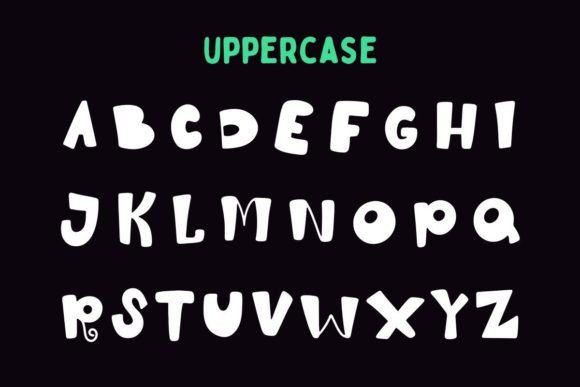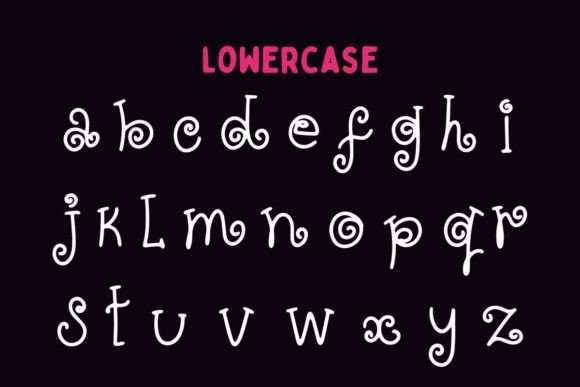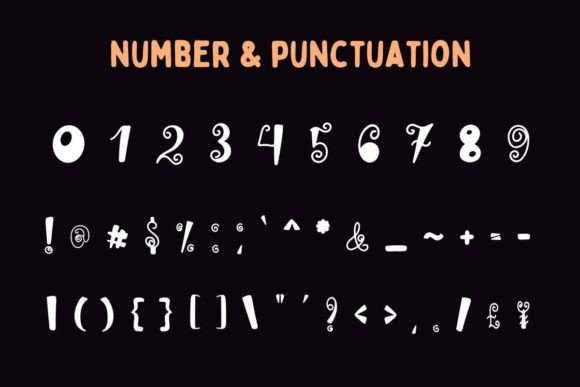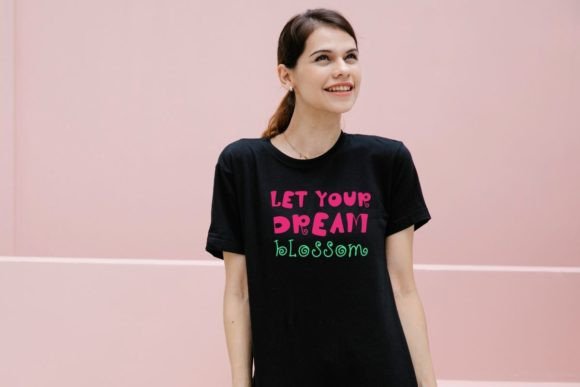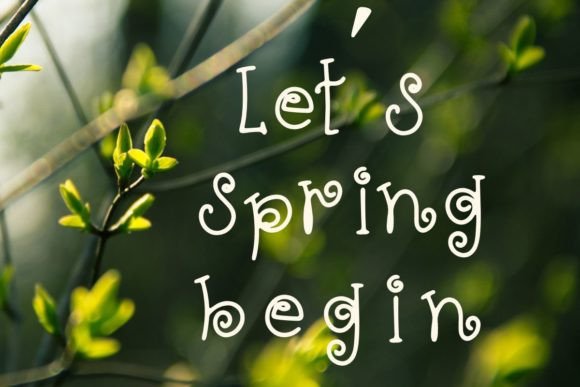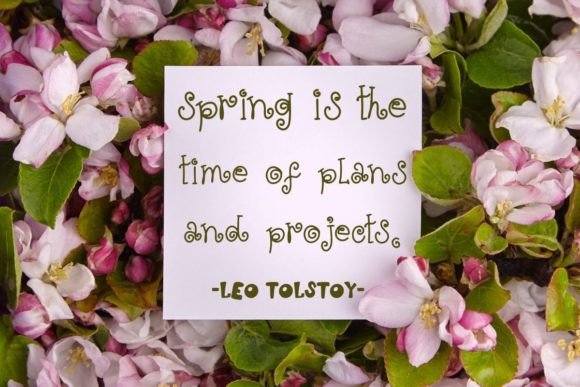
The Magic of Spring in Typography
As a designer, you know that moment of excitement when a new project is born, and you get to choose the perfect font to bring it to life. Maybe it’s a sunny day, and the world outside seems to be bursting with color, or perhaps it’s a quiet morning, and the stillness inspires a sense of calm. Whatever the case, the right font can elevate your design and make it truly unforgettable.
Enter the Hello Spring Font, a fresh and fun decorative font that’s perfect for titles or words needing a more dramatic emphasis. This charming font is a wonderful asset to any font library, offering the potential to enhance any creation and add a touch of personality to your designs.
Hello Spring Font Key Features
- Unique Characteristic: Hello Spring Font features a unique, hand-drawn style with subtle texture and imperfections, giving it a personal and artistic touch.
- Kerning and Ligatures: Hello Spring Font includes advanced kerning and ligature pairs, ensuring smooth and professional typography, even in complex text settings.
Hello Spring Font Review
I recently had the chance to work with the Hello Spring Font, and I must say it’s a lovely addition to any design project. ✨ Here are some of its strengths:
- Beautiful hand-drawn feel: The font has a unique, organic look that adds a touch of warmth and personality to any text.
- Good legibility: Despite its hand-drawn nature, the font is still easy to read, making it perfect for body text or headings.
- Versatile: Hello Spring Font works well in a variety of contexts, from branding and advertising to editorial and digital design.
- Limited language support: The font may not be suitable for projects that require a wide range of language support.
- Not ideal for small text: The font’s hand-drawn feel can make it difficult to read at very small sizes.
- May not be suitable for formal or corporate designs: The font’s playful, whimsical nature may not be the best fit for more formal or corporate projects.
Overall, I think Hello Spring Font is a great choice for designers who want to add a touch of personality and warmth to their projects. With its beautiful hand-drawn feel and good legibility, it’s a great addition to any design toolkit.
For the most effective use of Hello Spring Font, use it in projects that require a playful, elegant, and modern touch. It’s perfect for branding, marketing materials, and social media graphics. Some popular use cases include:
- Invitations and event graphics
- Marketing materials and social media graphics
- Wedding stationery and decorations